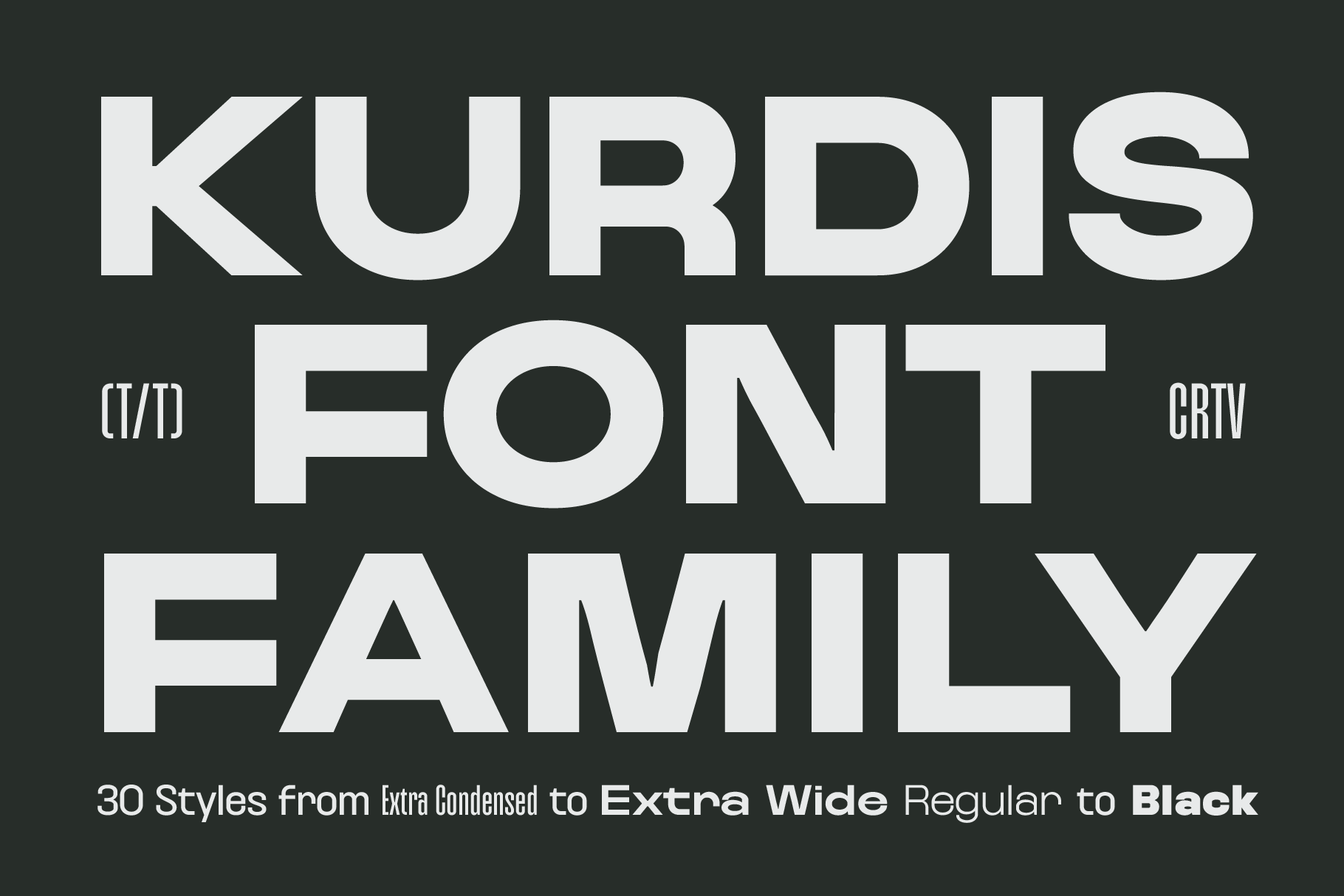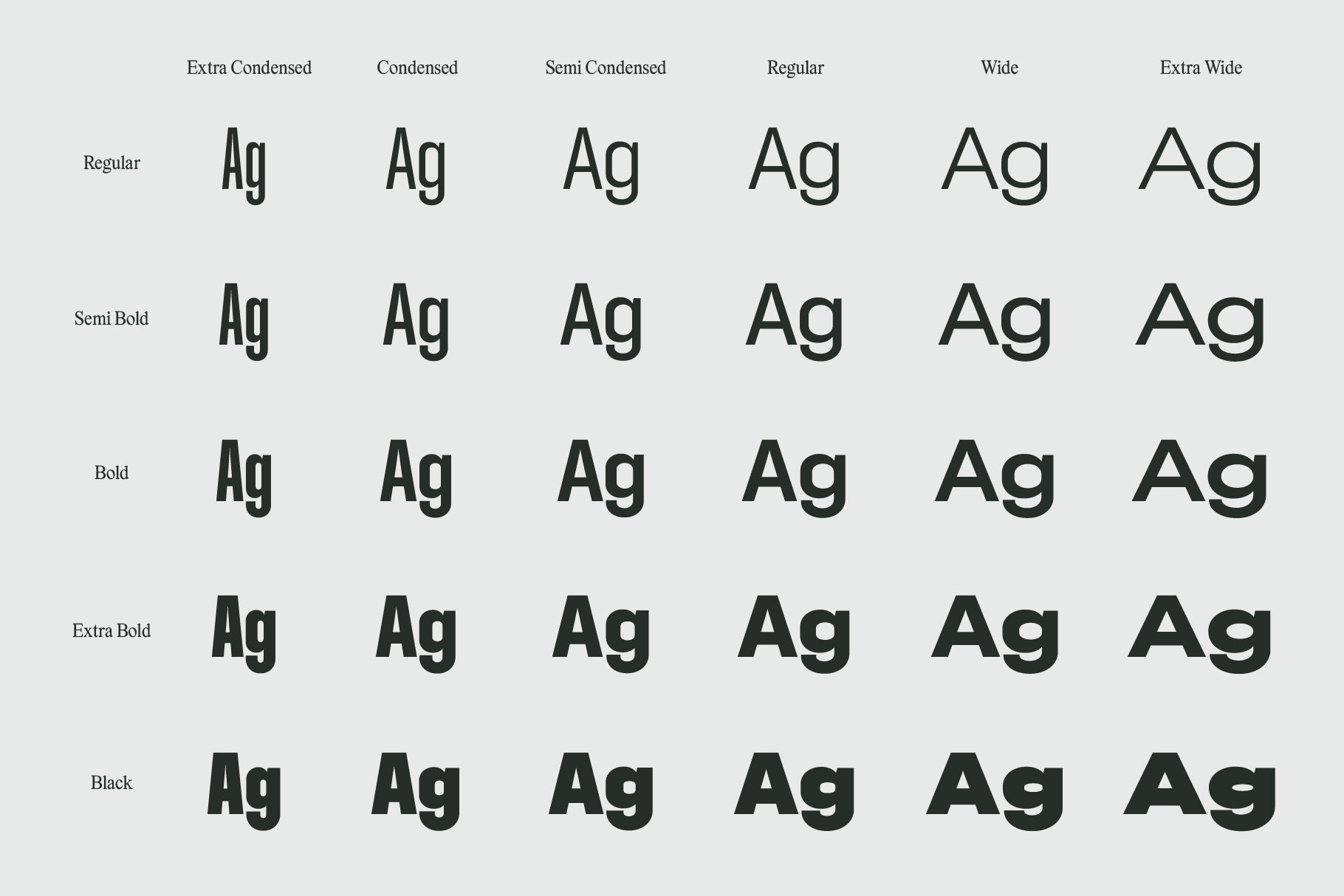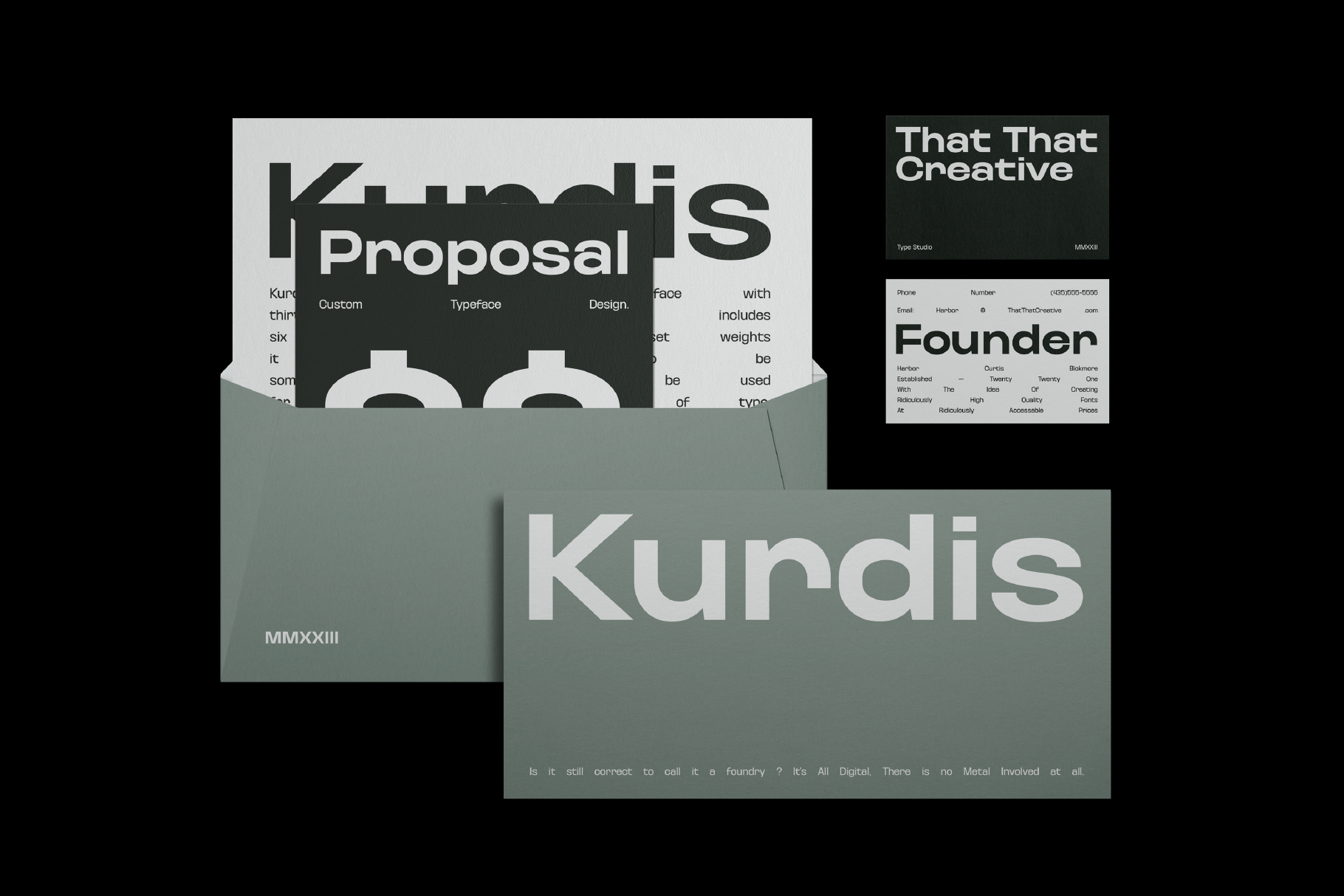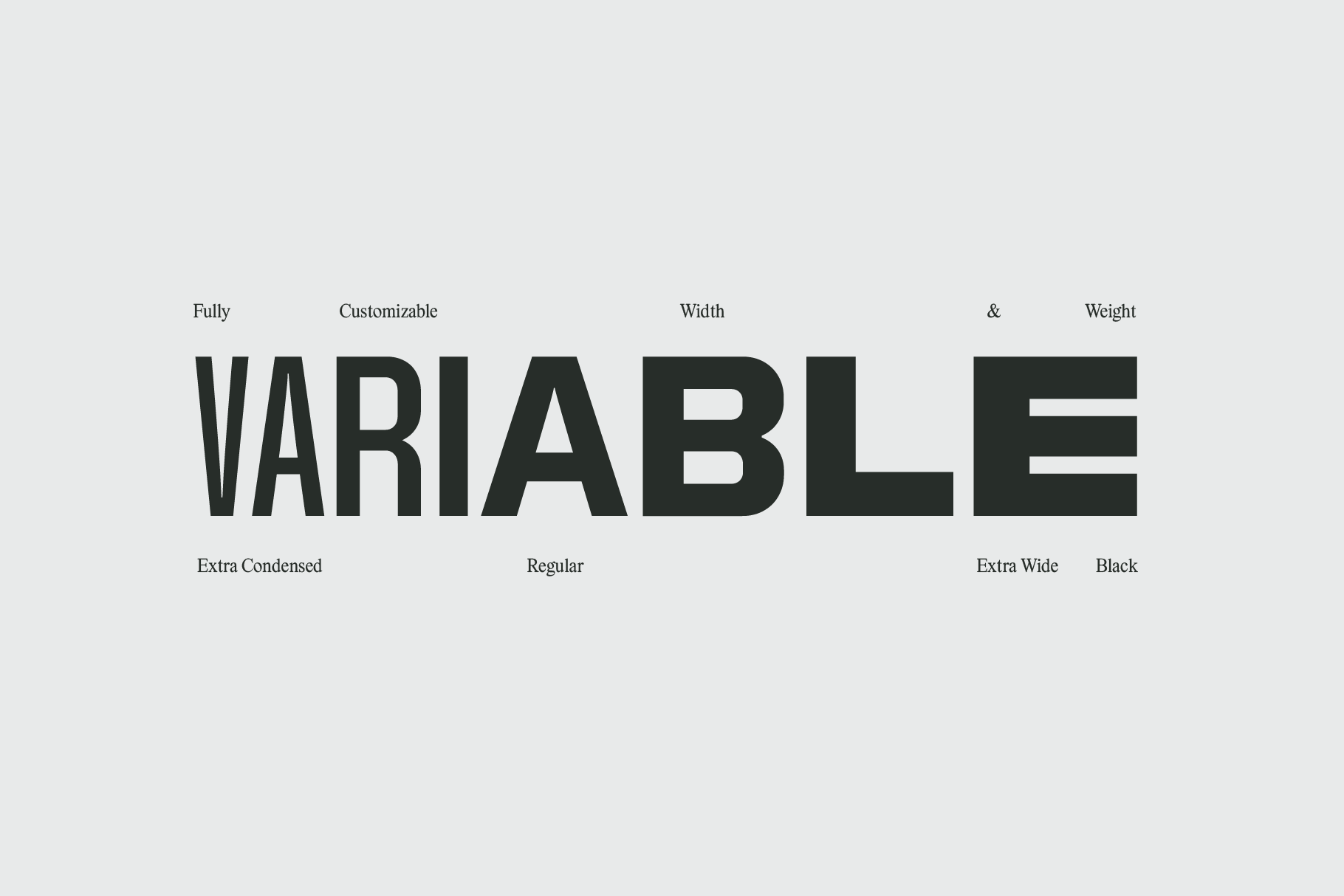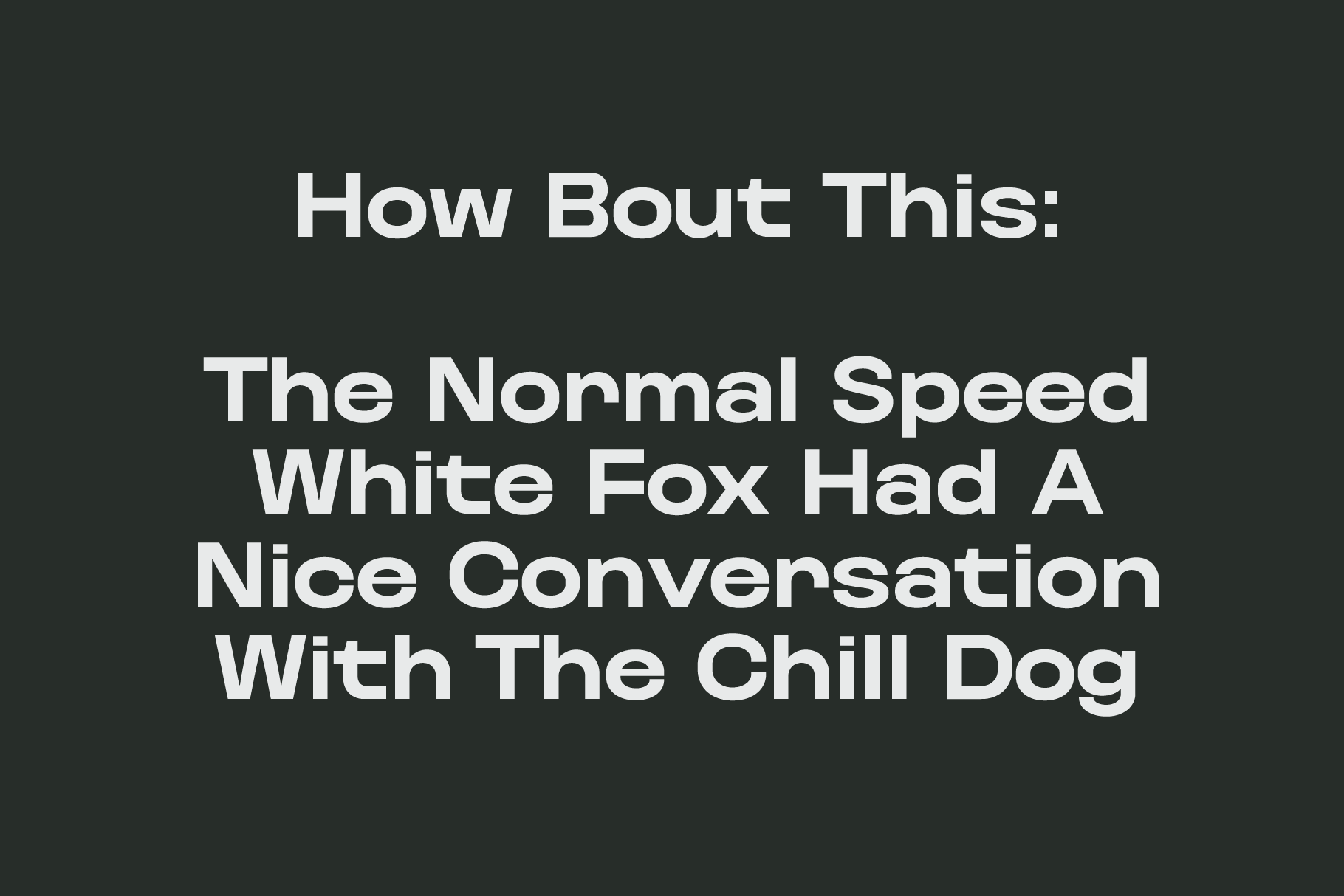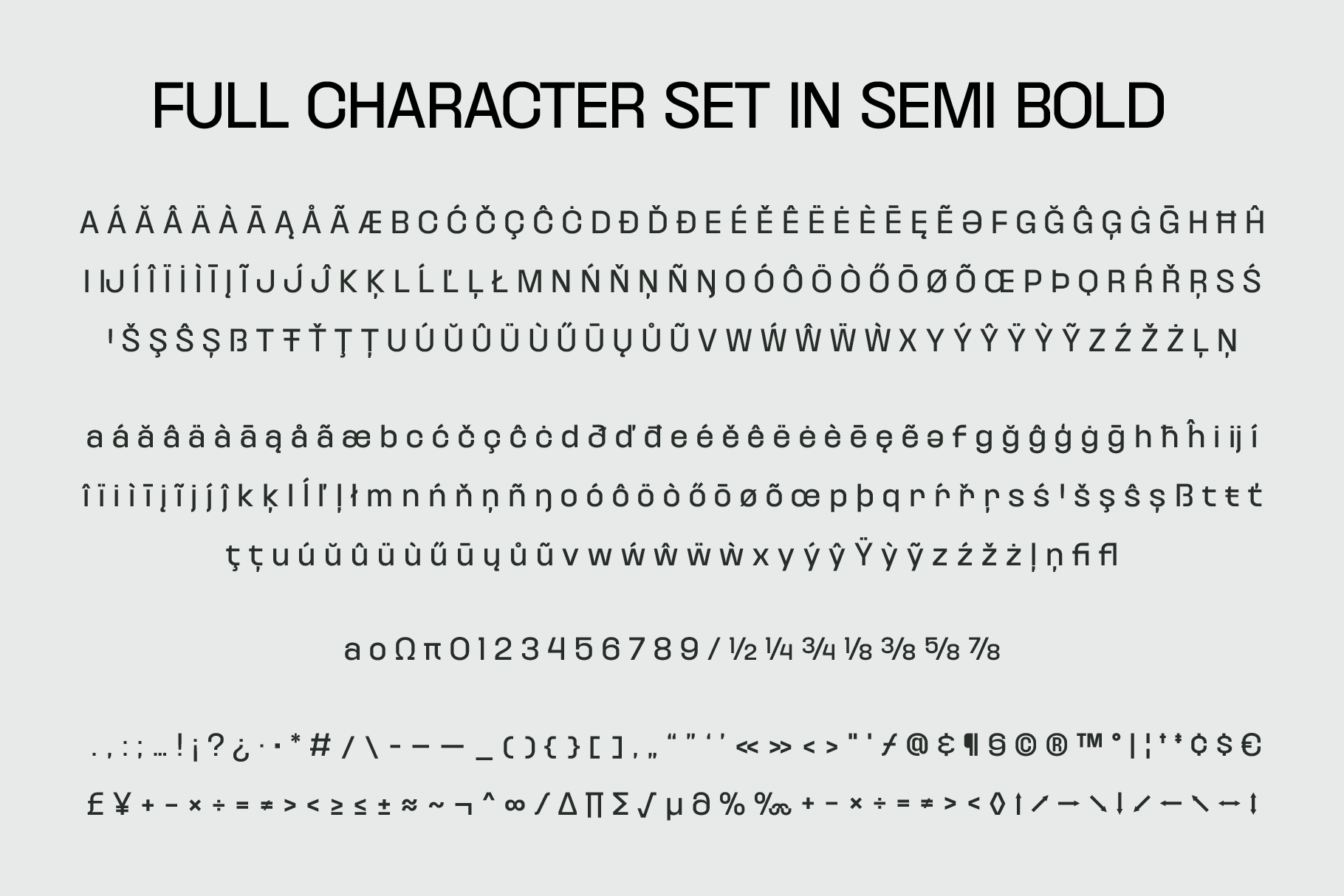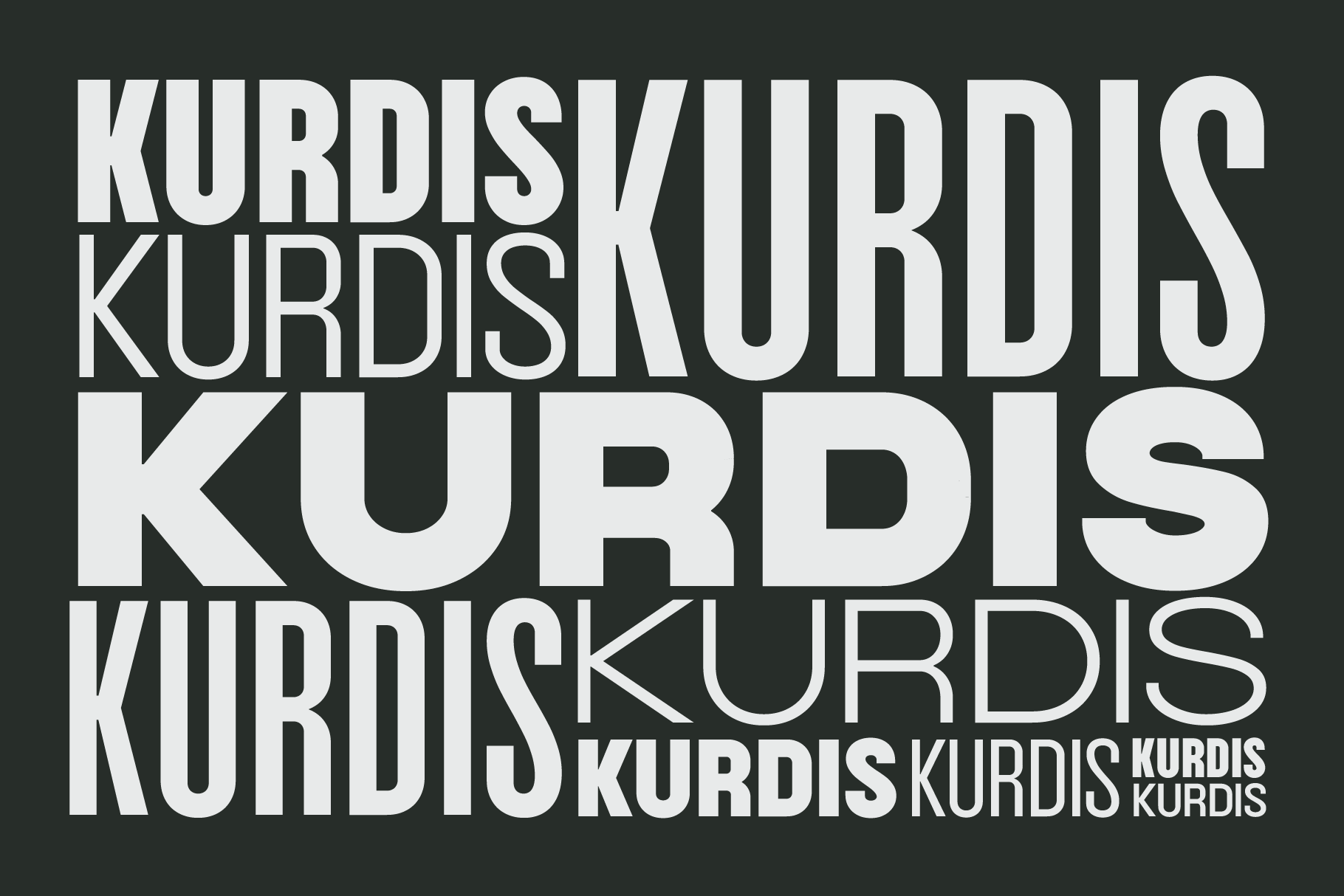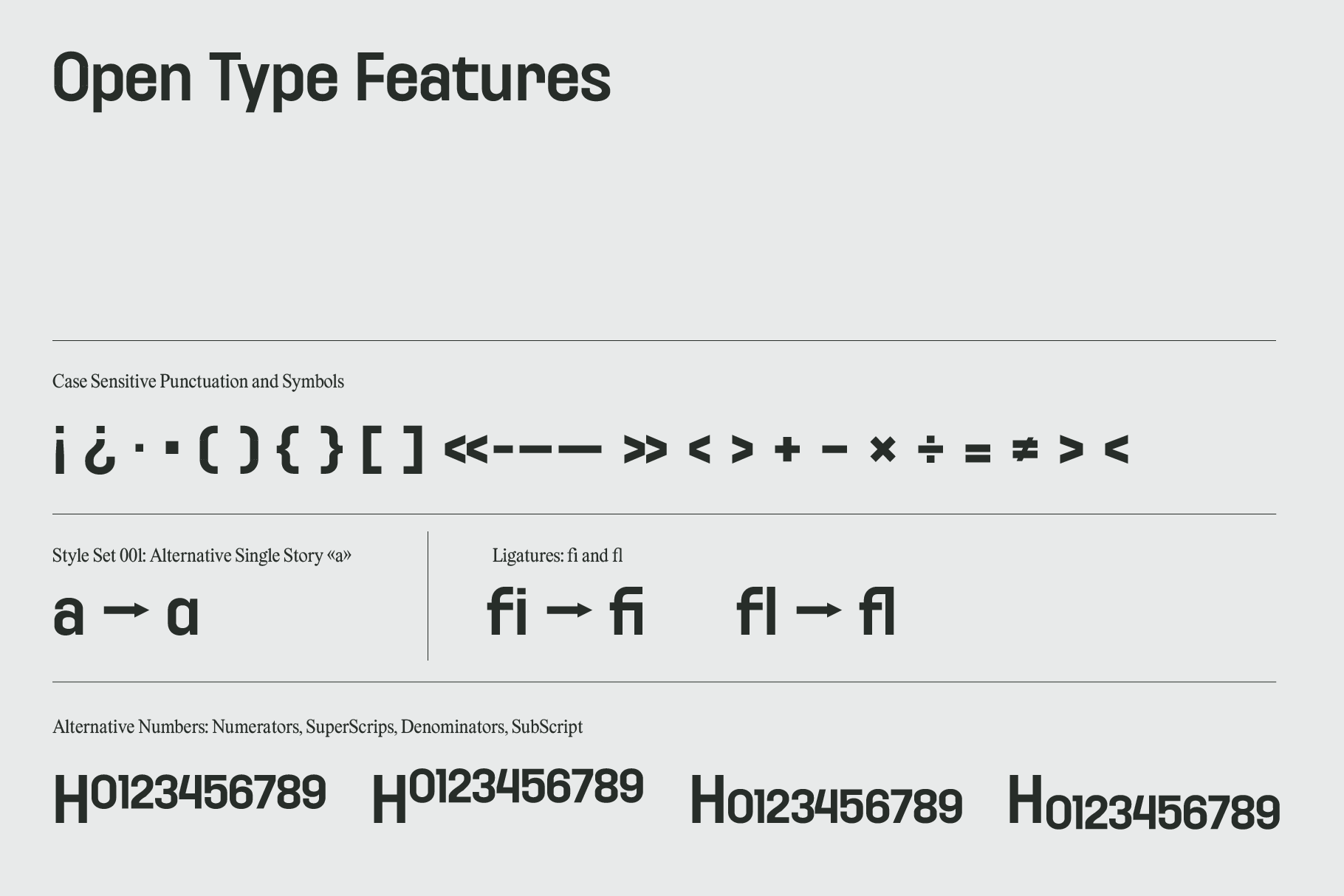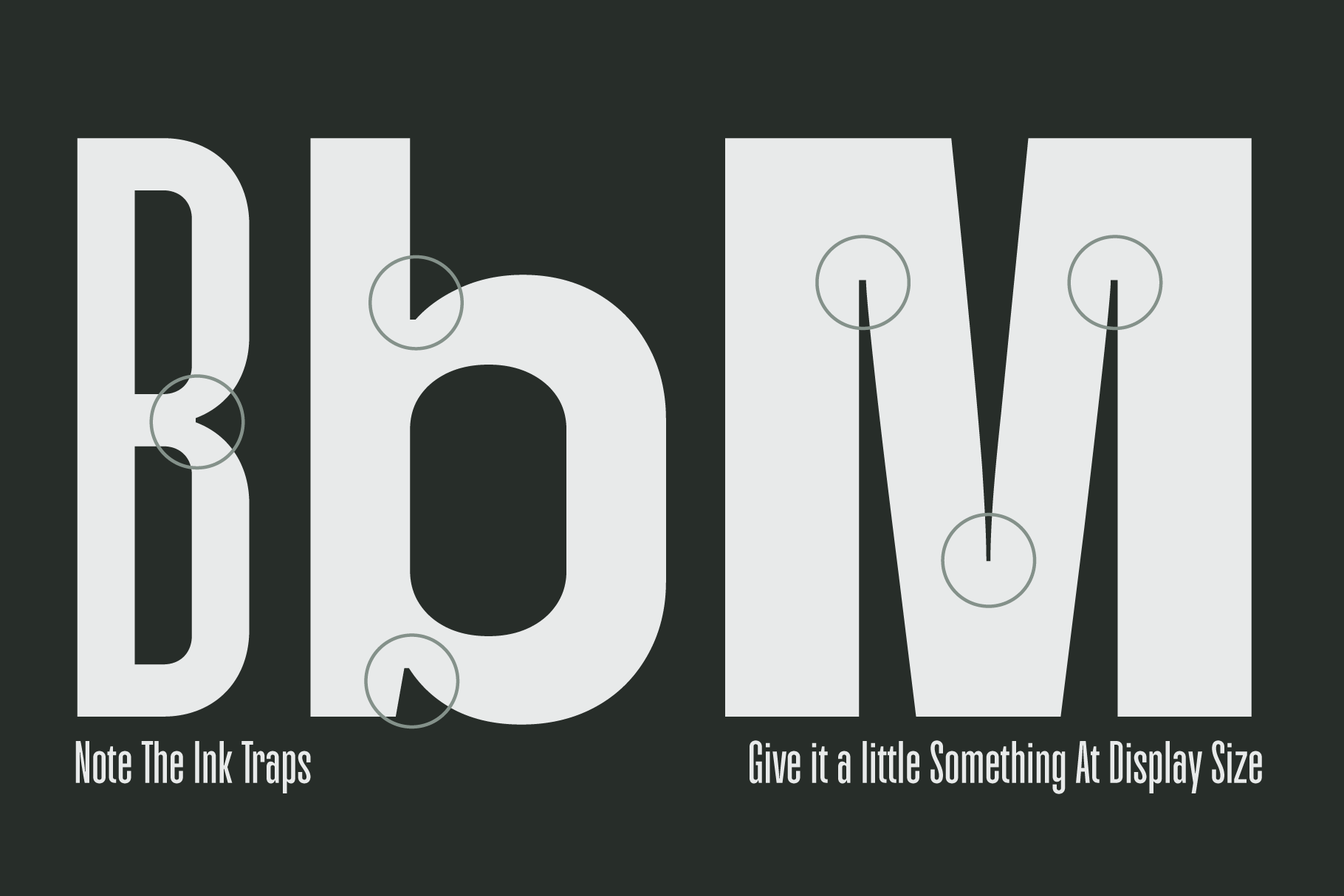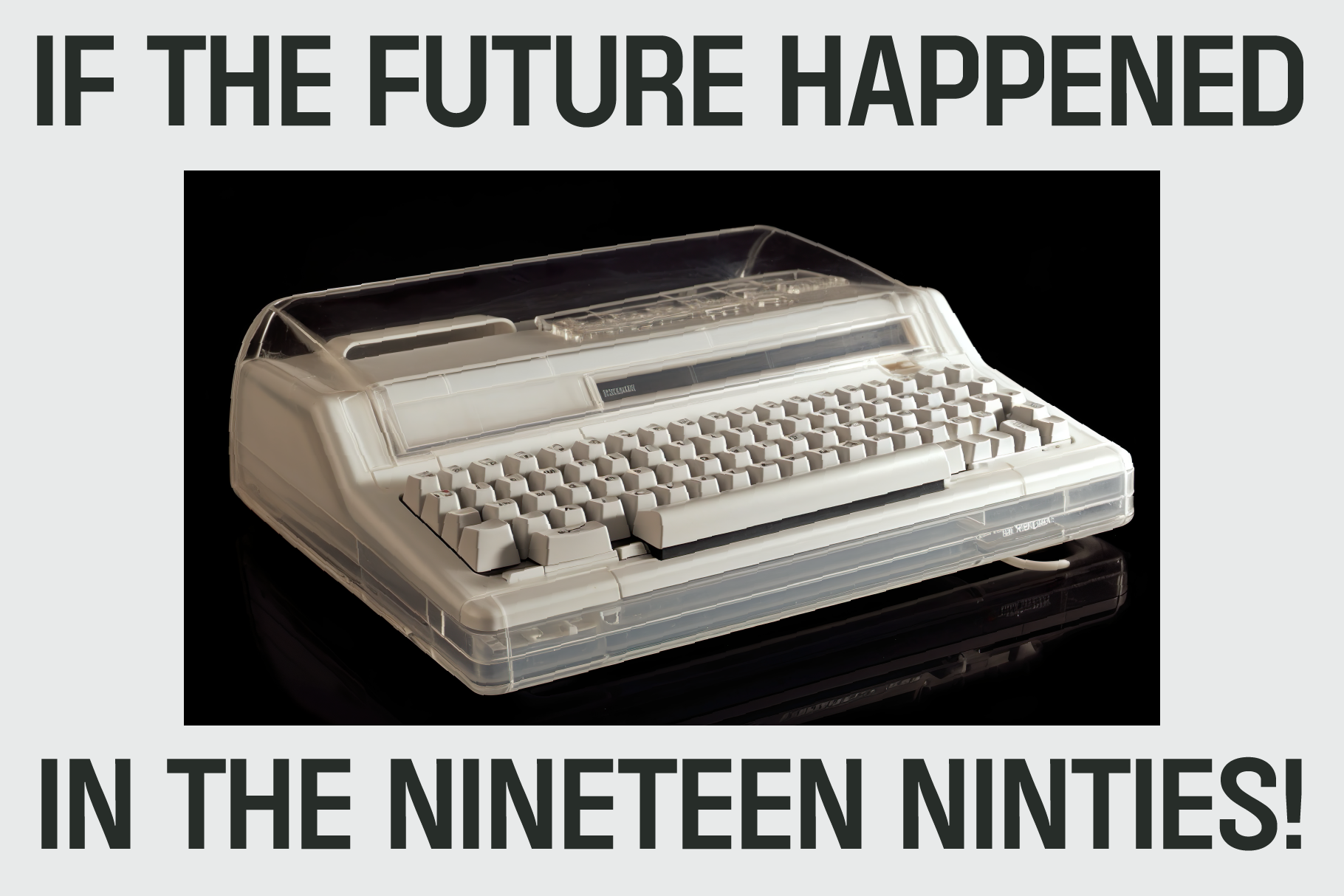
Kurdis Variable Family Collection
Kurdis Family
ExtraCondensed SemiBold ExtraCondensed ExtraBold ExtraCondensed Black Condensed SemiBold Condensed ExtraBold Condensed Black SemiCondensed SemiBold SemiCondensed ExtraBold SemiCondensed Black Regular SemiBold Bold ExtraBold Black Wide Wide SemiBold Wide ExtraBold Wide Black ExtraWide SemiBold ExtraWide ExtraBold ExtraWide BlackKurdis is a modern sans serif font family Variable on the Width and Weight Axis